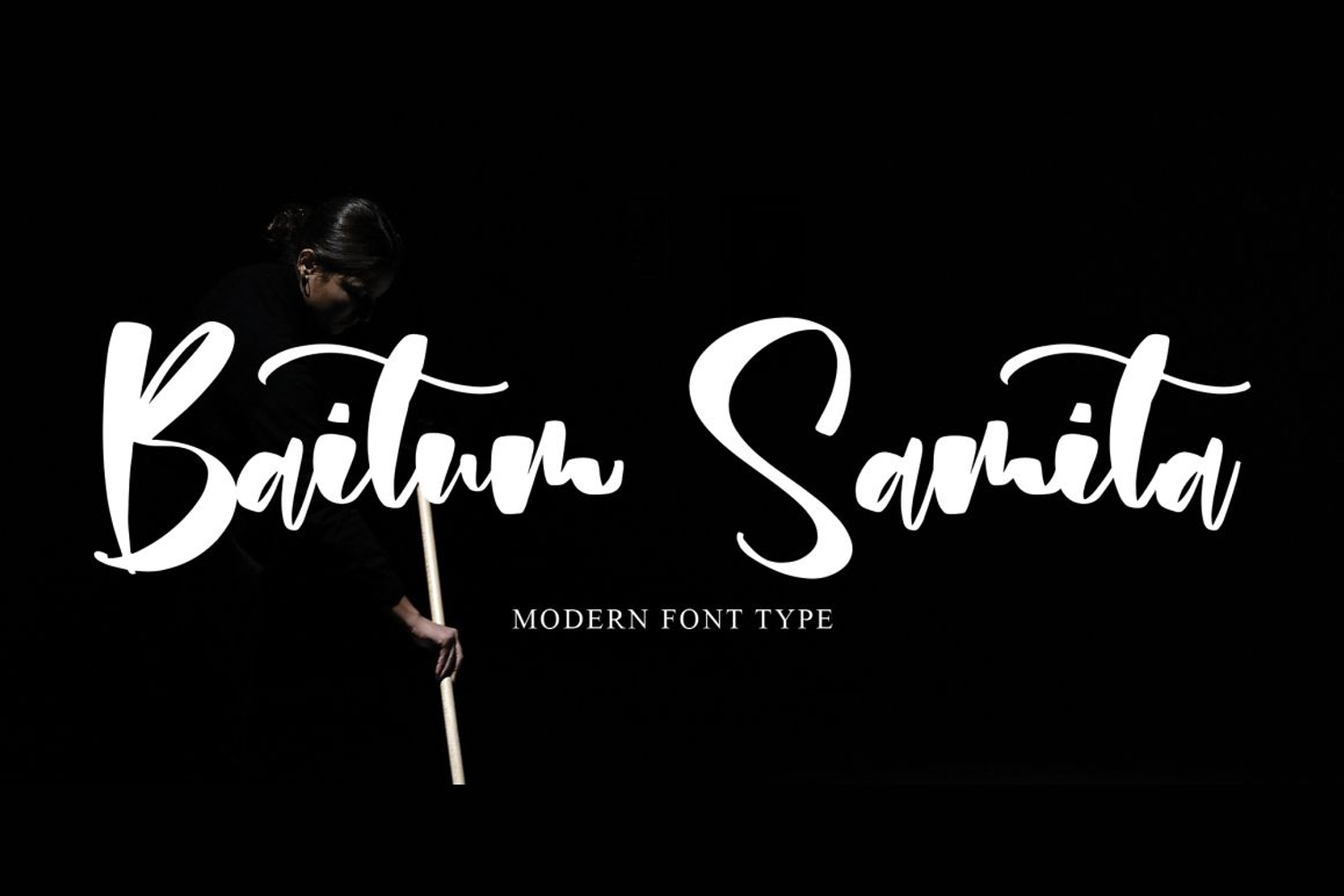
Baitum Samita
Baitum Samita is an expressive handwritten font. With modern pen strokes, fun characters with little ligatures, alternate lowercase, and swashes. To give you more creative work. Baitum Samita font supports multilingual. This font is good for logo design, social media, movie titles, book titles, short texts even long letter texts and good for your secondary text font with sans or serif. Create stunning work with Baitum Samita font.